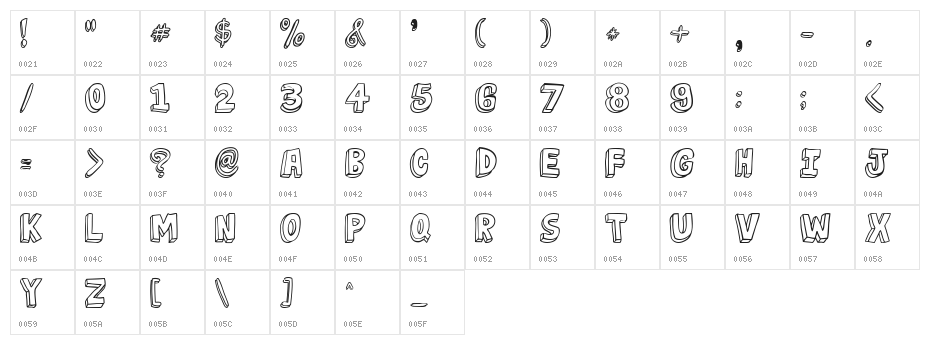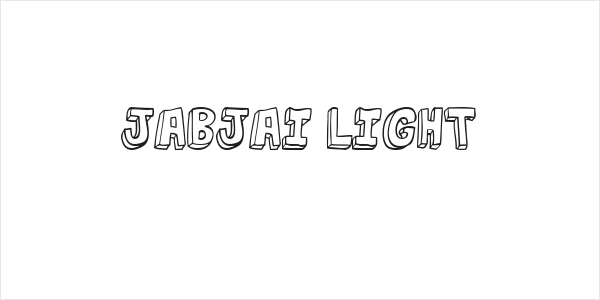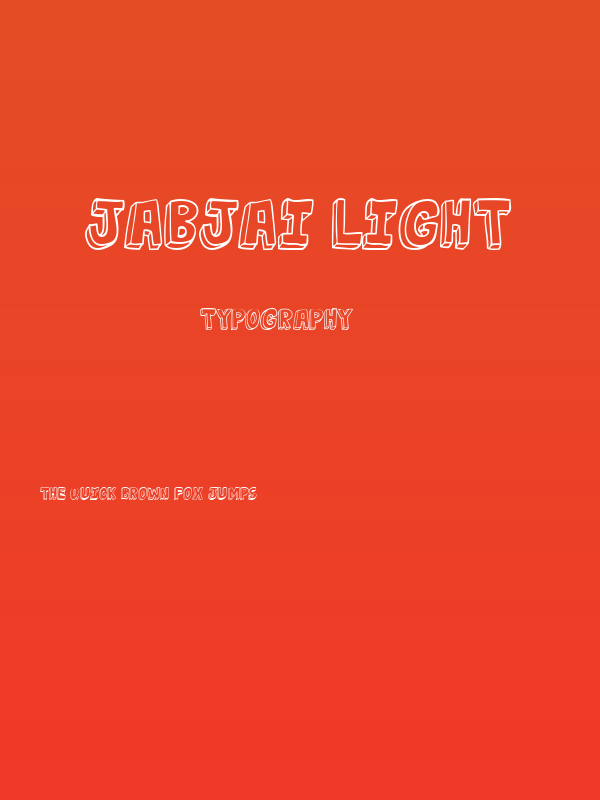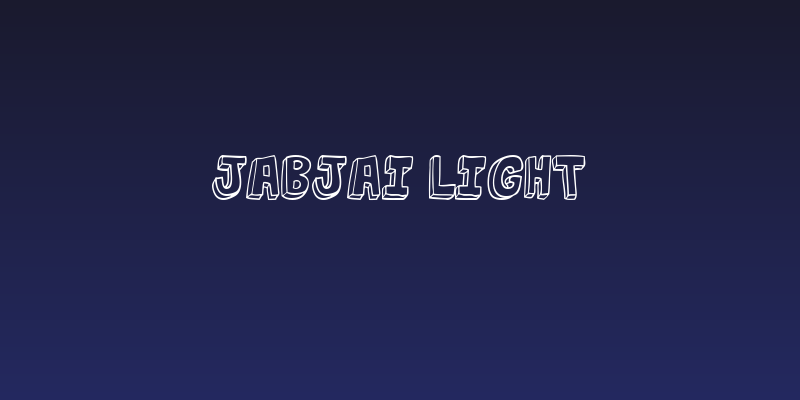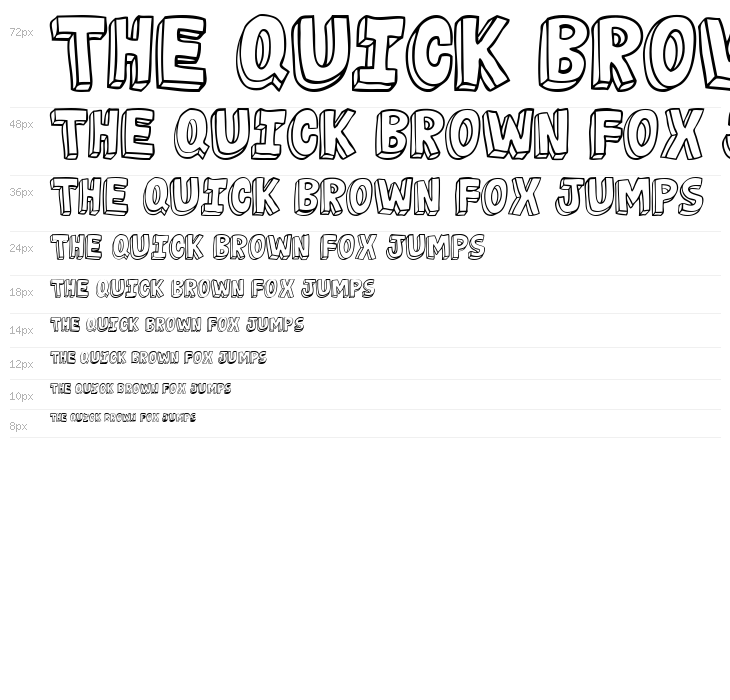
jabjai Light Font
jabjai Light Description
This font features a playful and bold 3D effect, with each character appearing as if it is popping off the page. The letters are outlined with a thick black line, giving them a cartoonish and dynamic appearance. The style is consistent across uppercase and lowercase letters, as well as numbers and special characters. The font's design is eye-catching and suitable for creative and informal projects. Its unique style makes it ideal for use in children's books, comic strips, or any project that requires a fun and engaging typeface.